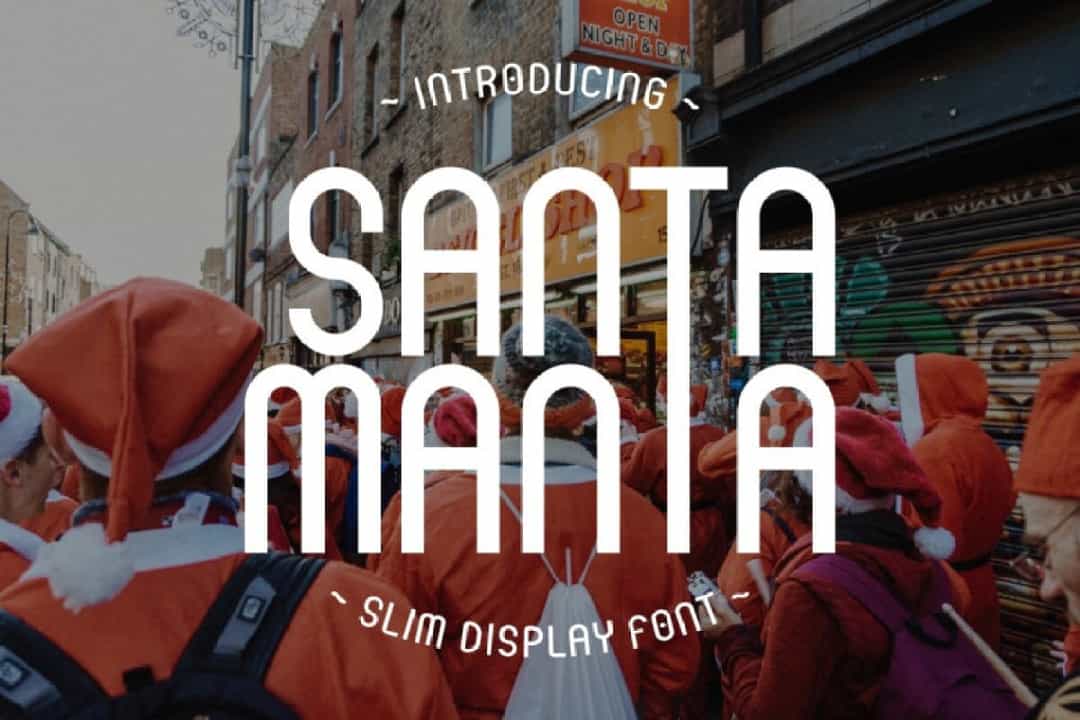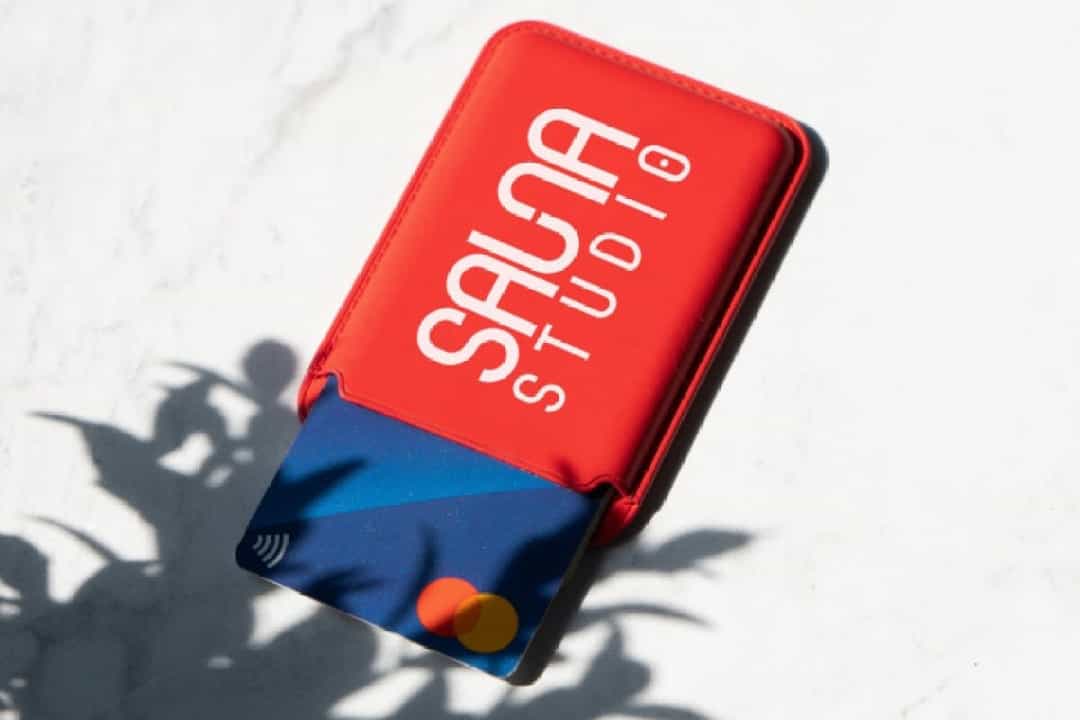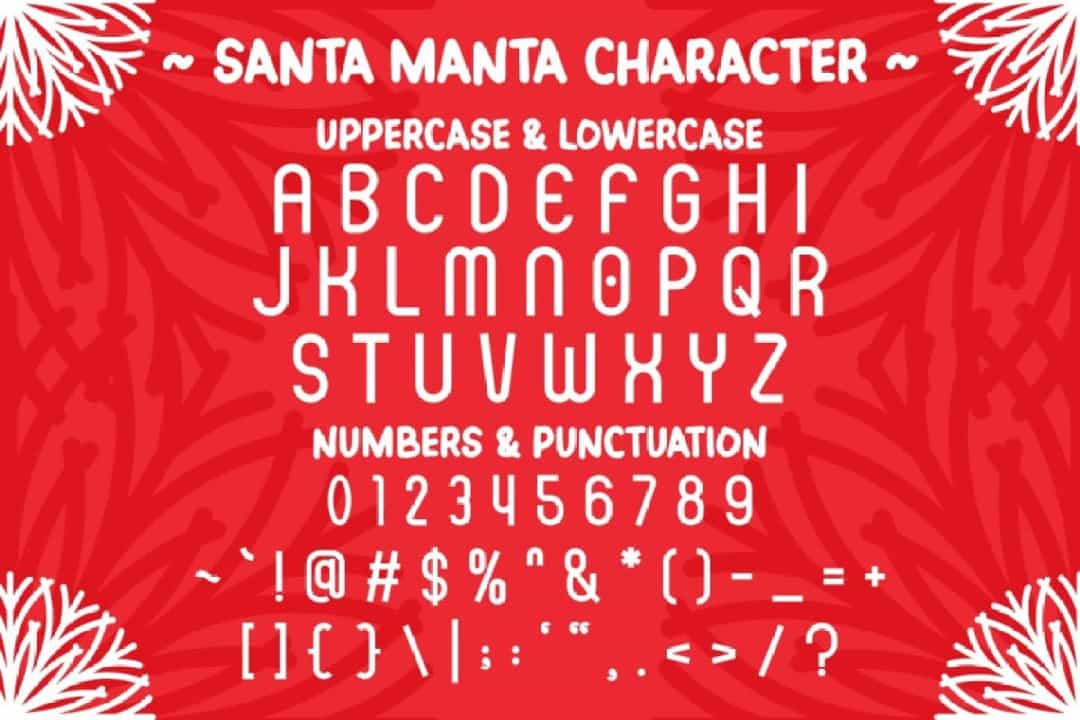
Santa Manta can be described as the ultimate small display font designed to capture the spirit and essence of Christmas with Santa’s magic, perfect for holiday greeting cards, invitations, wrapping gifts, logo design projects, digital art projects or crafting.